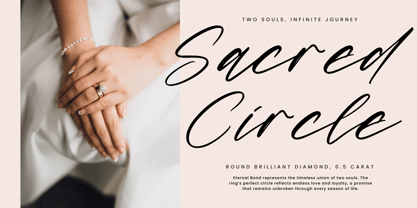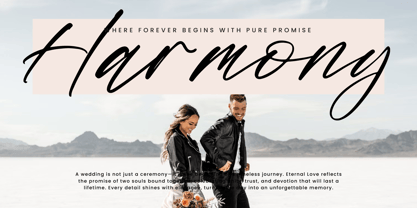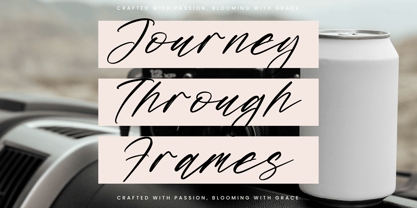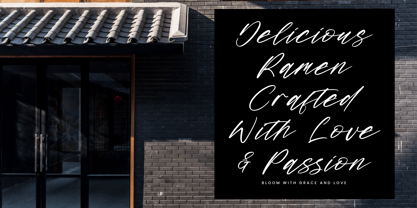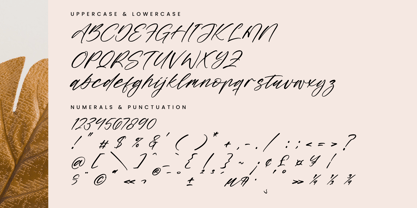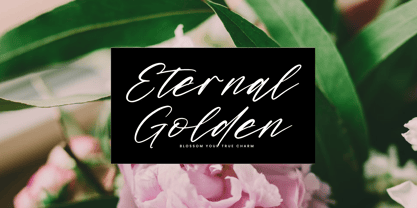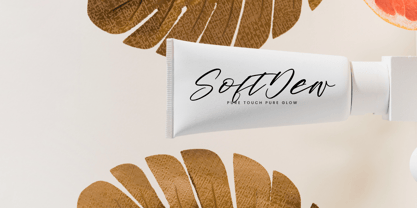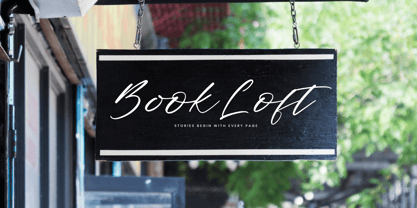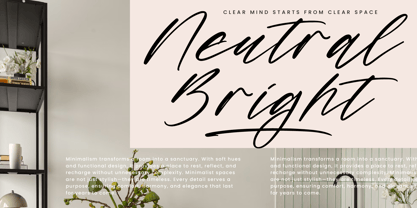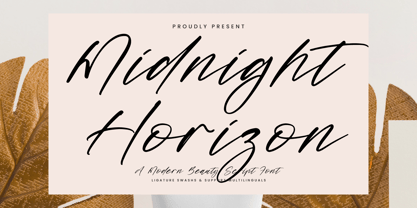
Midnight Horizon
by Integritype
The Midnight Horizon Font Family was designed by Dimas Alif Maulana and published by Integritype. Midnight Horizon contains 2 styles and family package options.
Midnight Horizon is a contemporary and stylish script font crafted by Integritype Studio. This versatile typeface is ideal for a wide range of applications, including logos, branding projects, homeware designs, product packaging, mugs, quotes, posters, shopping bags, t-shirts, book covers, business cards, invitation cards, greeting cards, labels, photography, watermarks, and special events. Its elegant design adds a touch of luxury to any project that demands a premium aesthetic. With its fluid strokes and artistic flair, Midnight Horizon is perfect for enhancing your creative endeavors and making a lasting impression.